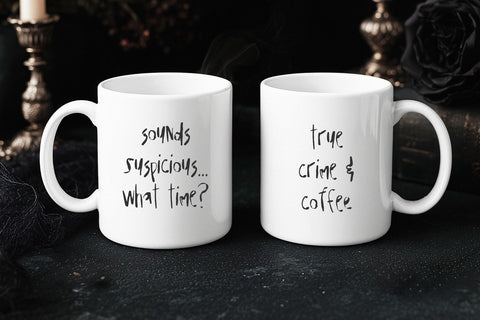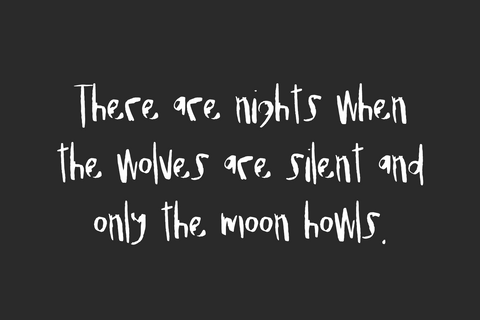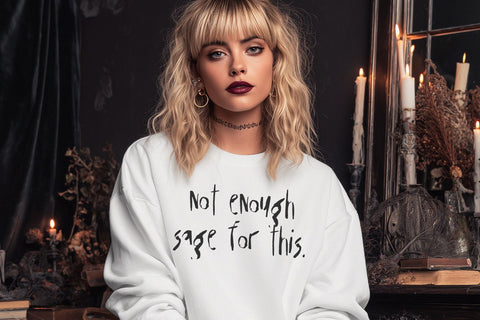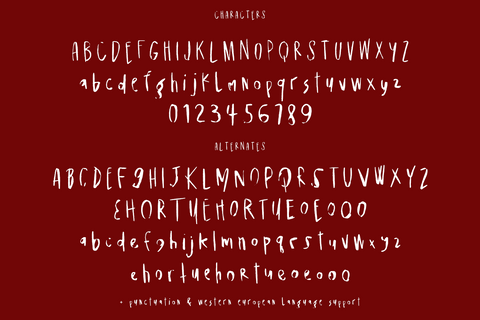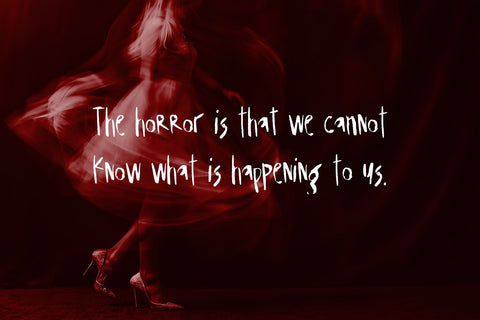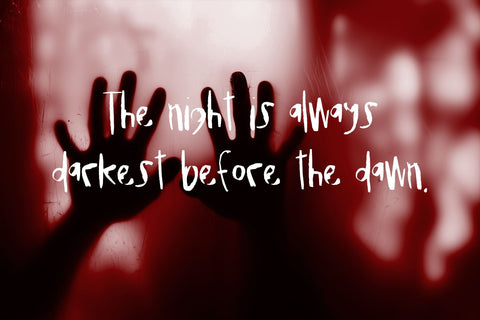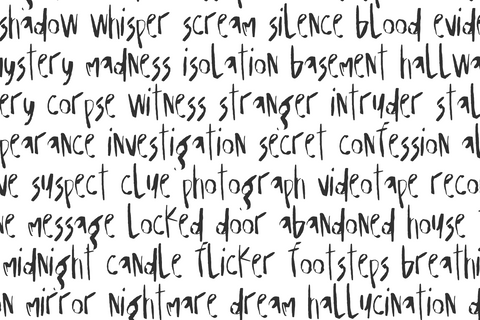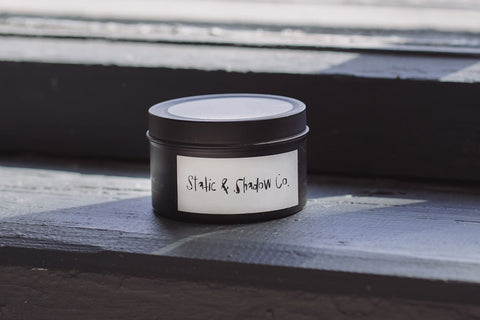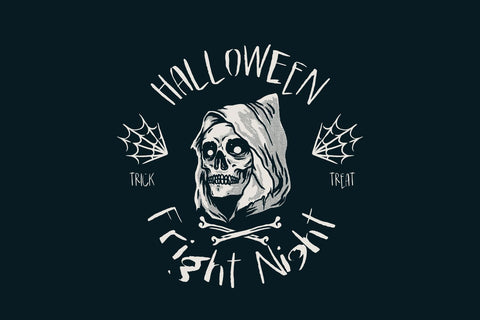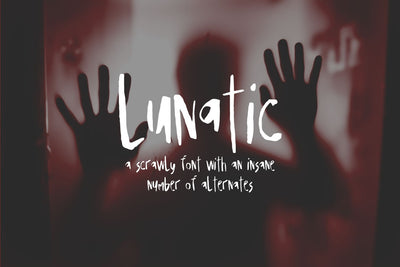
Lunatic Display Font
Lunatic Display Font is an inky, messy, heavily textured font that is chaotic and inspired by psychological horror. The letterforms are irregular in many ways. Uneven thickness, texture, and an unstable baseline position give this font the appearance of a weird handwritten note. A-Z and a-z characters each have an alternate option, with some letters having more than one alternate version. Swap them out as you see fit to give your project a truly handwritten look. Use this font for horror movie posters, shirts, logos, branding, and any project that requires a messy, dark aesthetic. Lunatic is mysterious and fractured, so it’s probably a bad fit for vinyl cutting. I’m looking at you, crafters. Please use Lunatic for print then cut only.